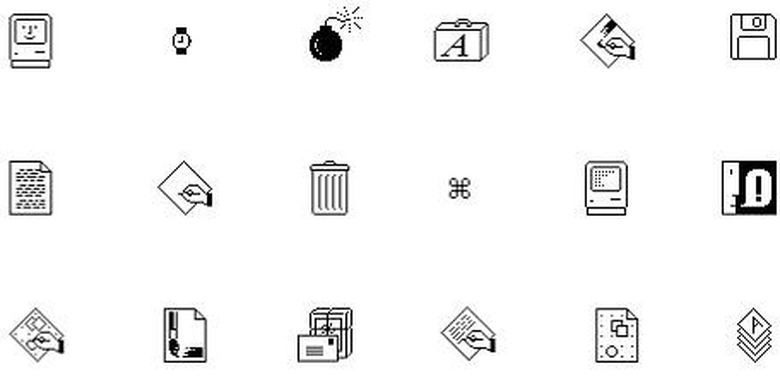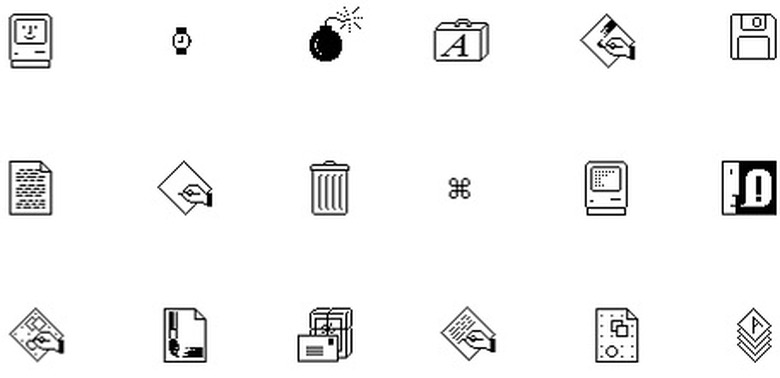
Susan Kare, the brains behind the Mac's famous icons and fonts
As one of the original members of Apple's Macintosh team, Susan Kare played an integral role in determining the look and feel for the original Mac OS. Recently, Priceonomics ran an extensive and informative interview with Kare wherein she details some behind the scenes info regarding the design of some of her most famous icons and fonts.
First, it's interesting to note how Kare — who holds a Ph.D in design — got involved with the Macintosh team in the first place. As it turns out, Kare was friends with Andy Hertzfeld who tipped her off that the then burgeoning team needed some graphic art expertise.
By remaining friendly with Andy after high school, I knew he obviously was really interested in computers. He showed me a very rudimentary Macintosh, and mentioned that he needed some graphics for it. He knew I was interested in art and graphics, and that if I got some graph paper I could make small images out of the squares, which he could then transfer onto the computer screen. That sounded to me like a great project. I did it in exchange for an Apple II, although I didn't actually use the Apple II for Mac graphics.
Once on-board, Kare went to work where she would go on to design icons and fonts that are familiar to multitudes of computer users even to this day. From the Happy Mac to the dreaded "bomb" icon, Kare's work certainly evokes feelings of nostalgia for anyone who spent a fair amount of time on the Mac back in the 80s and 90s.
The entire article is well worth a read as it provides interesting tidbits regarding the Apple command key, how Kare dealt with Steve Jobs, how the infamous Dogcow icon came to be, and why Kare never viewed icon design as a new artistic endeavor unto itself.
I still joke that there's nothing new under the sun, and bitmap graphics are like mosaics and needlepoint and other pseudo-digital art forms, all of which I had practiced before going to Apple. I didn't have any computer experience, but I had experience in graphic design.
As for what Kare has been up to after leaving Apple, well, she joined Steve Jobs at NeXT and subsequently went off on her own in 1997, going on to to perform freelance work at companies like Facebook, Paypal, and Microsoft.